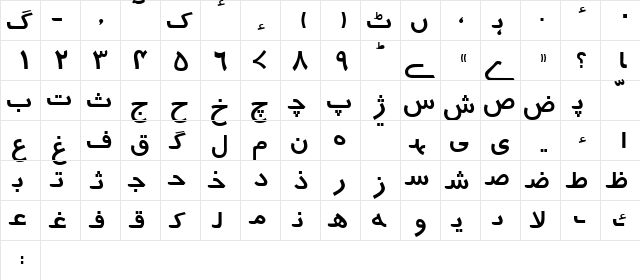
Urdu7TypewriterSSK Regular
Design Context for Urdu7TypewriterSSK Typeface
Urdu7TypewriterSSK uses fixed-width spacing throughout, giving it the structured, systematic character associated with coding environments and technical documentation.
Well-suited to data-driven dashboards, coding tutorials, and any design that wants to reference the world of programming.
Pro Tip: Use Urdu7TypewriterSSK with slightly increased line-height for extended reading — fixed-width spacing can feel dense in longer passages without extra breathing room.